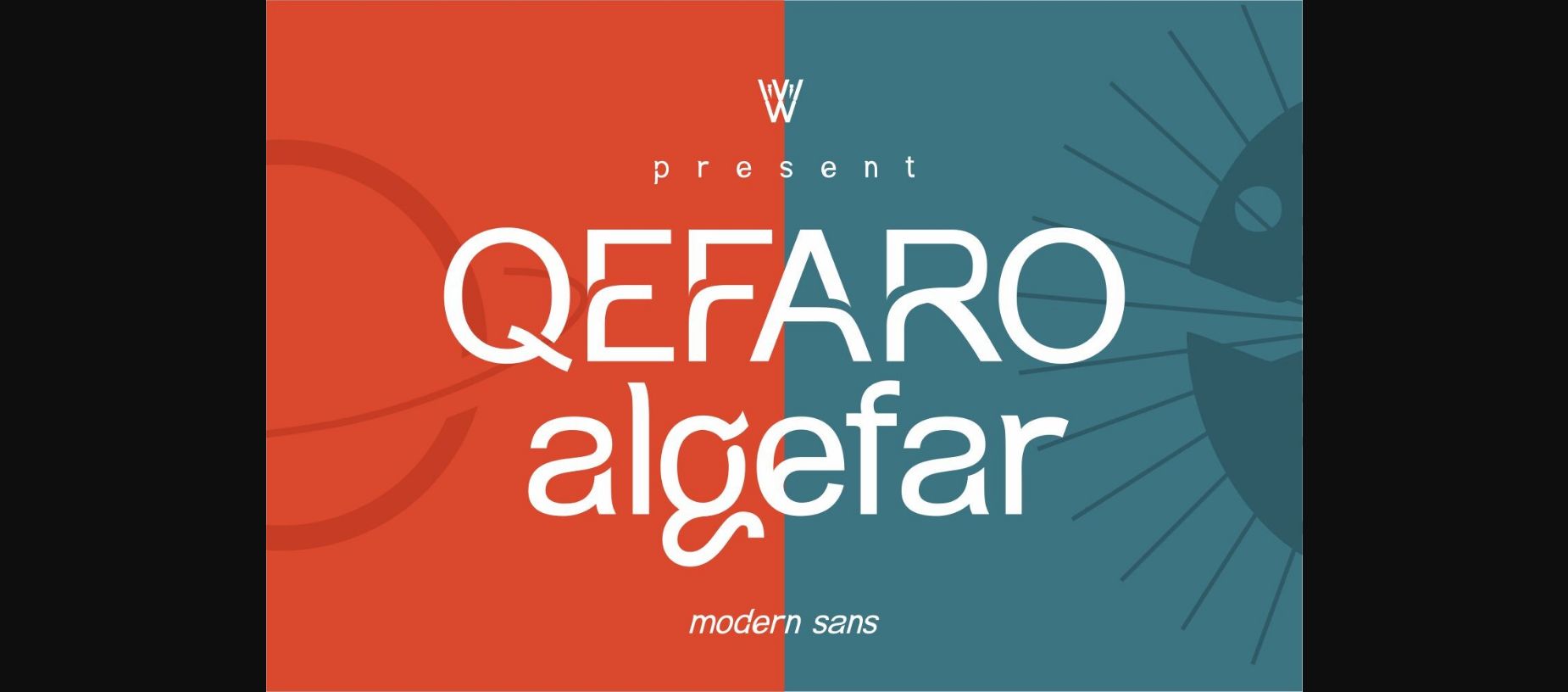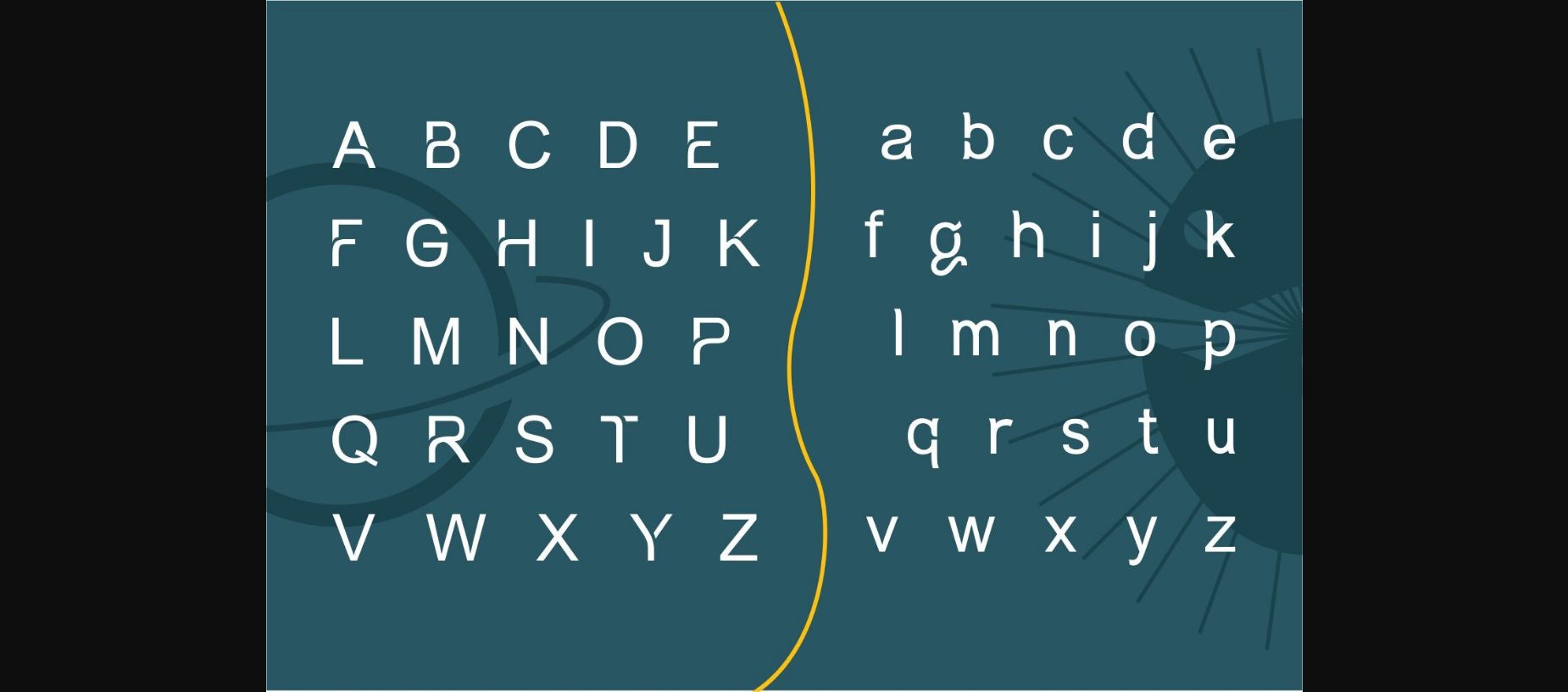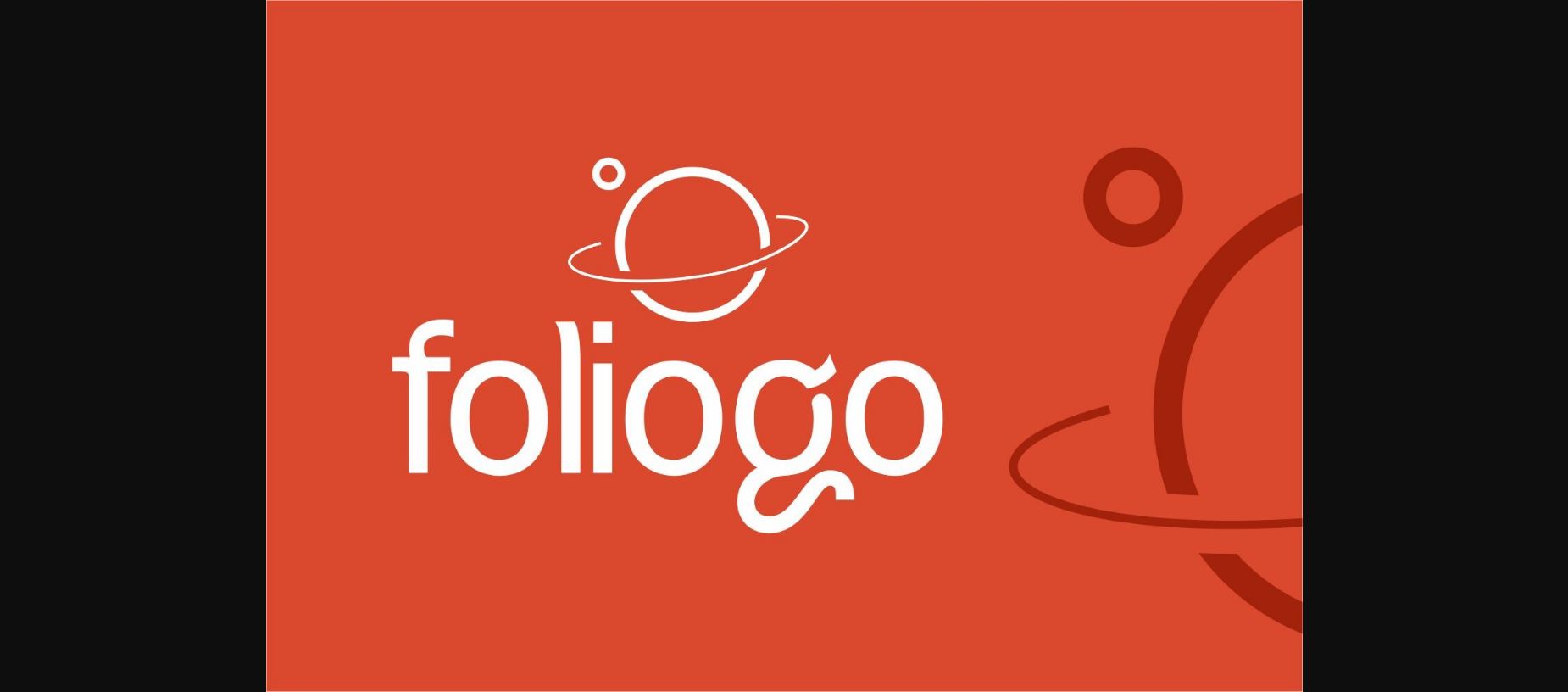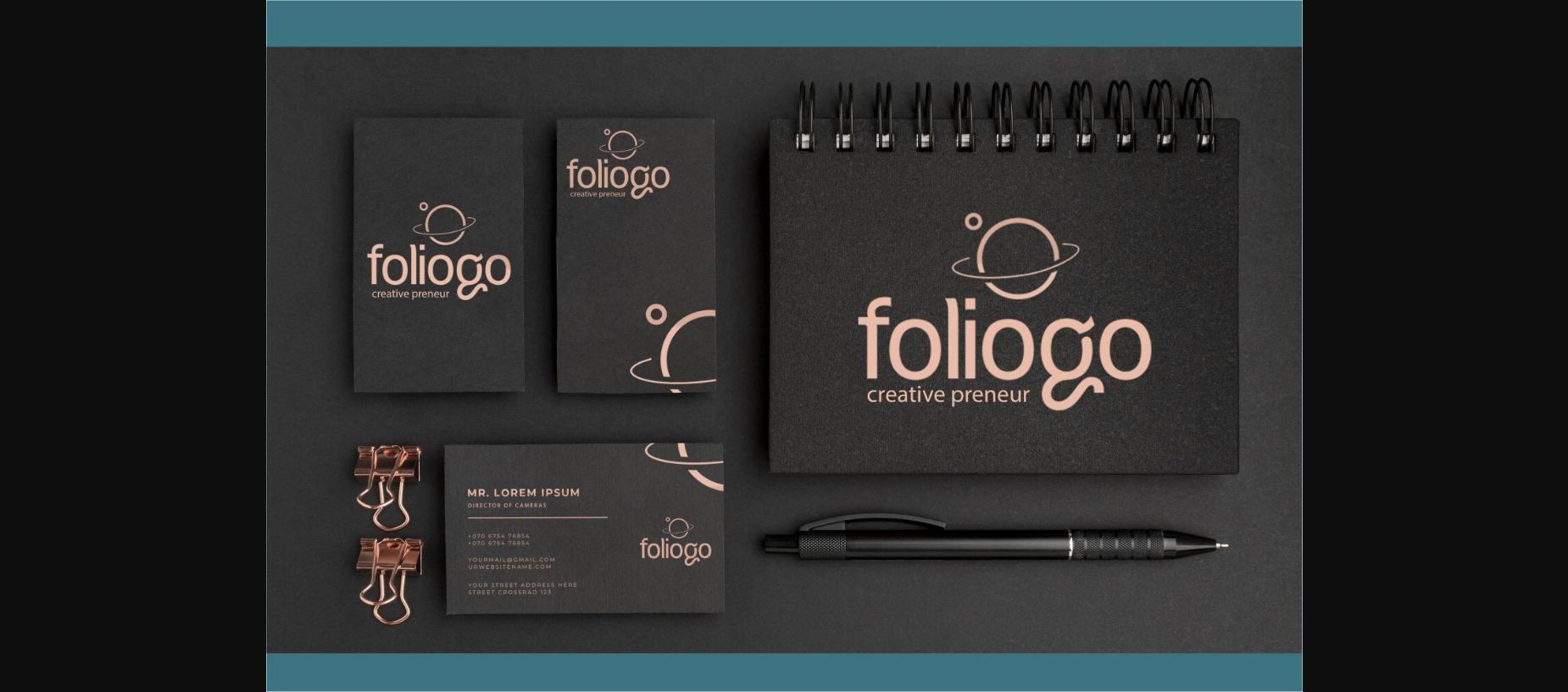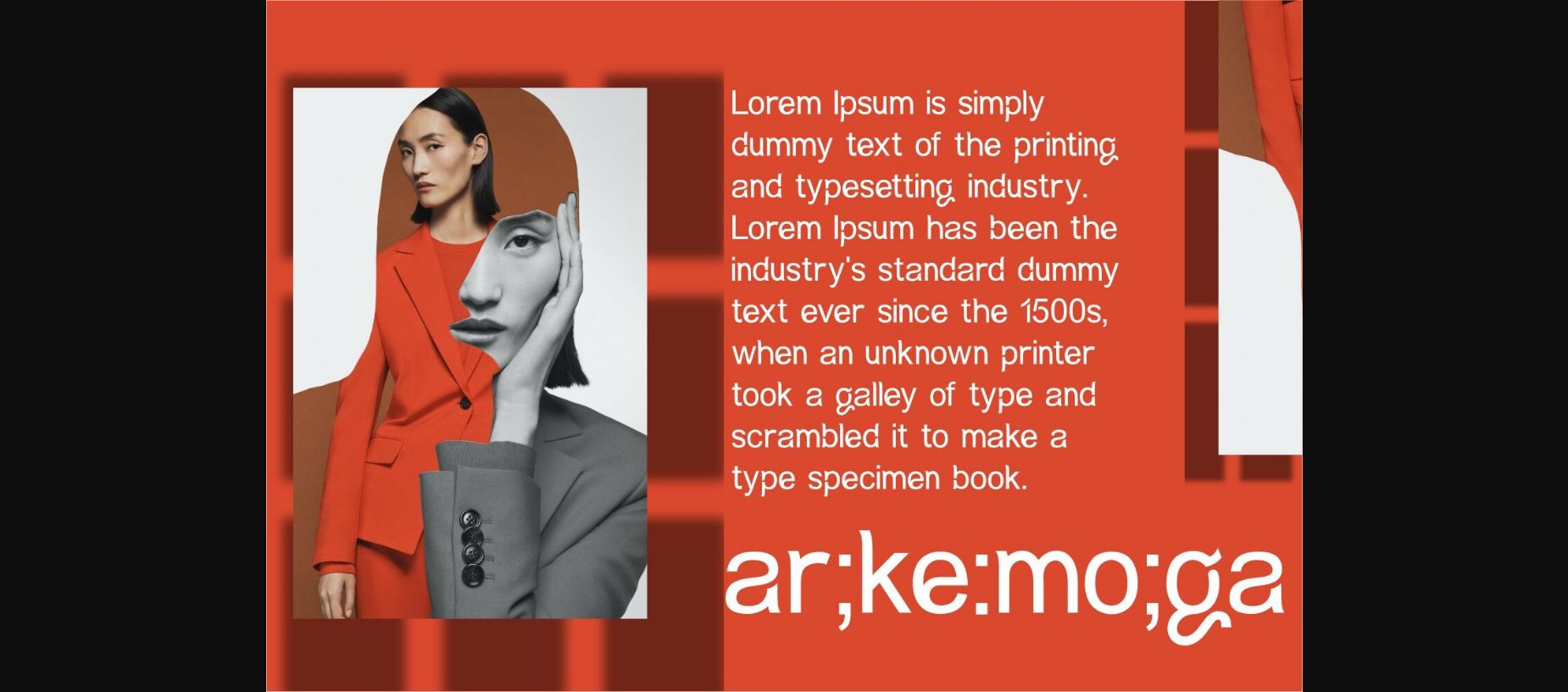
About Qefaro Algefar Font
Have you ever seen the revolution of the few arial font shapes you use?
Never have you, Qefaro Algefar takes you to the other side of elegance in typography. It has a basic shape like Arial, but the pieces on the letters make an artistic impression with formality wrapped in creativity making Qefaro Algefar an interesting font choice.
This font is a Modern sans type, but tends to be more of a display font, this font is ideal for creating a logo and title for a magazine or product promotion, and can be used from titles to assets in feature film productions.
Never have you, Qefaro Algefar takes you to the other side of elegance in typography. It has a basic shape like Arial, but the pieces on the letters make an artistic impression with formality wrapped in creativity making Qefaro Algefar an interesting font choice.
This font is a Modern sans type, but tends to be more of a display font, this font is ideal for creating a logo and title for a magazine or product promotion, and can be used from titles to assets in feature film productions.